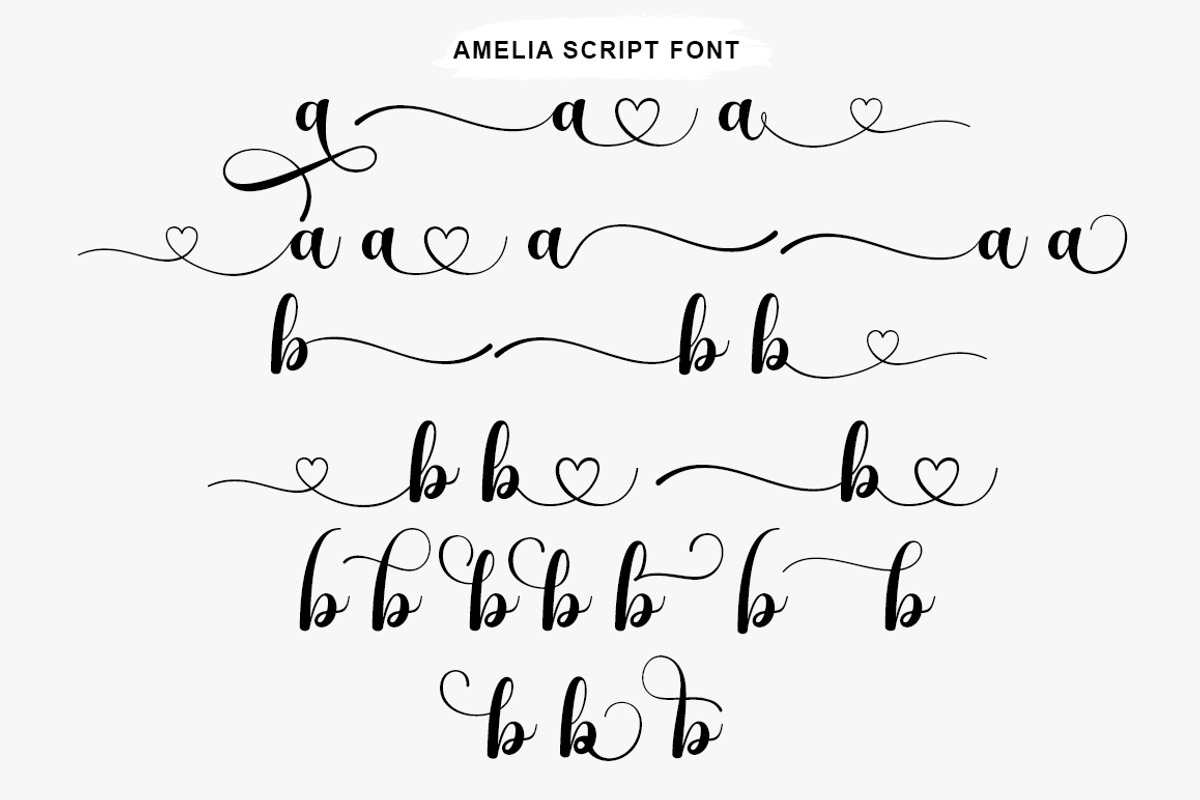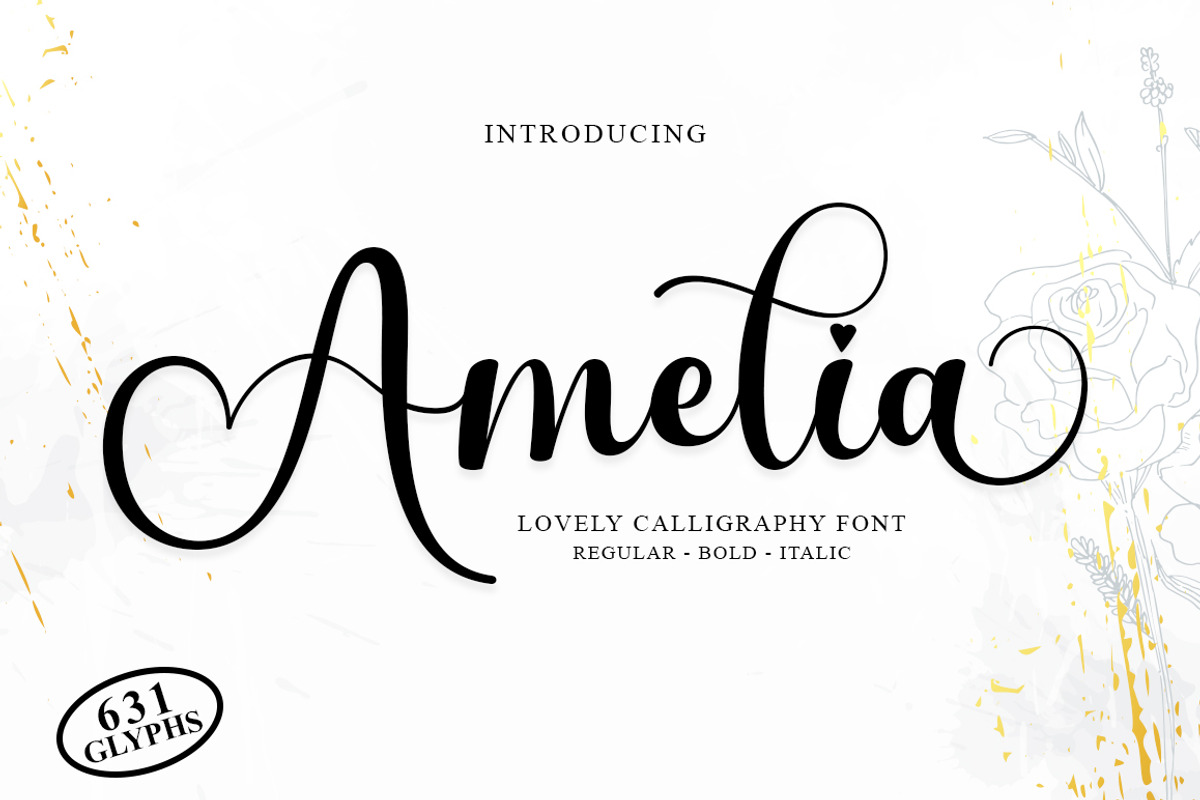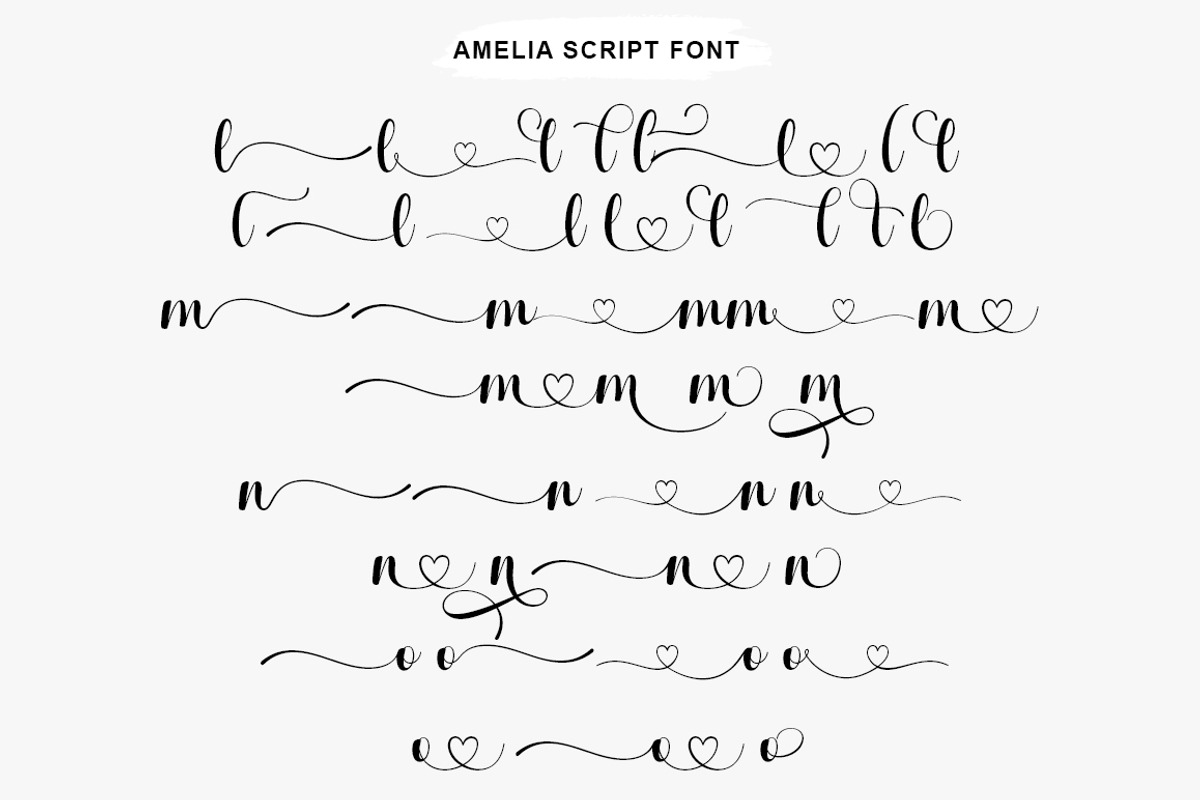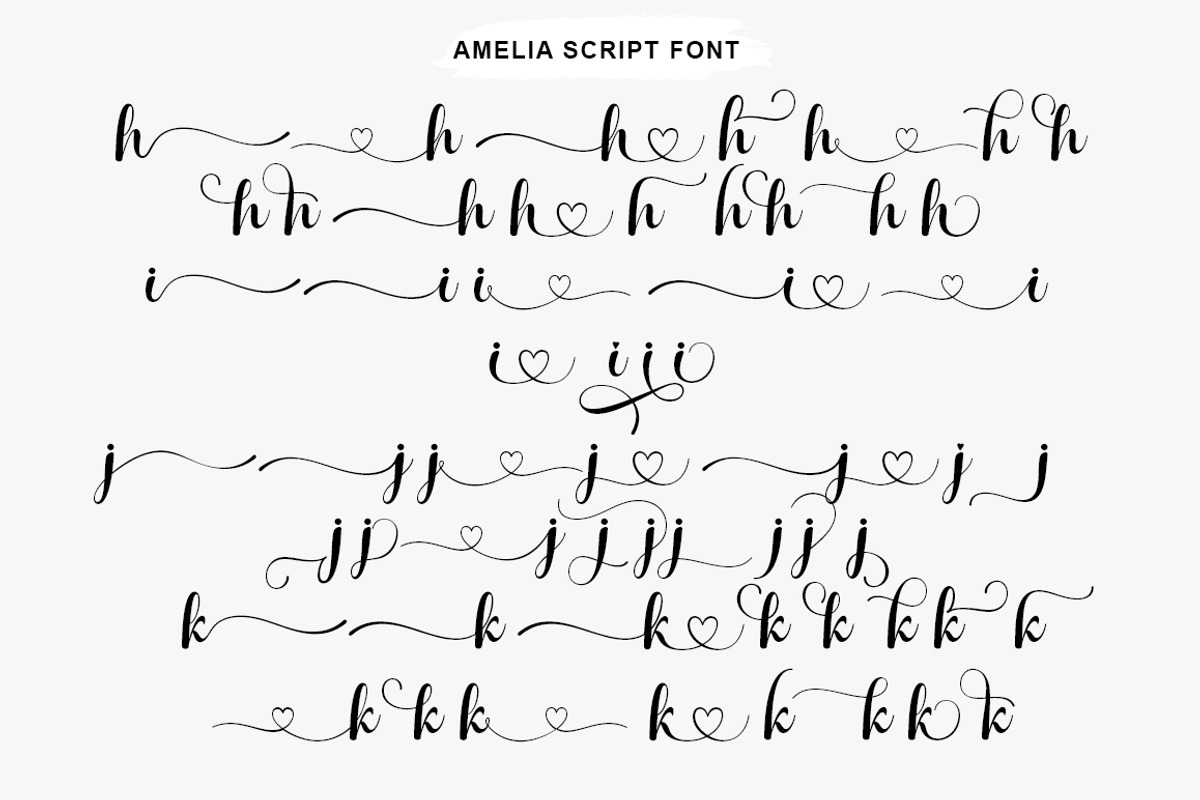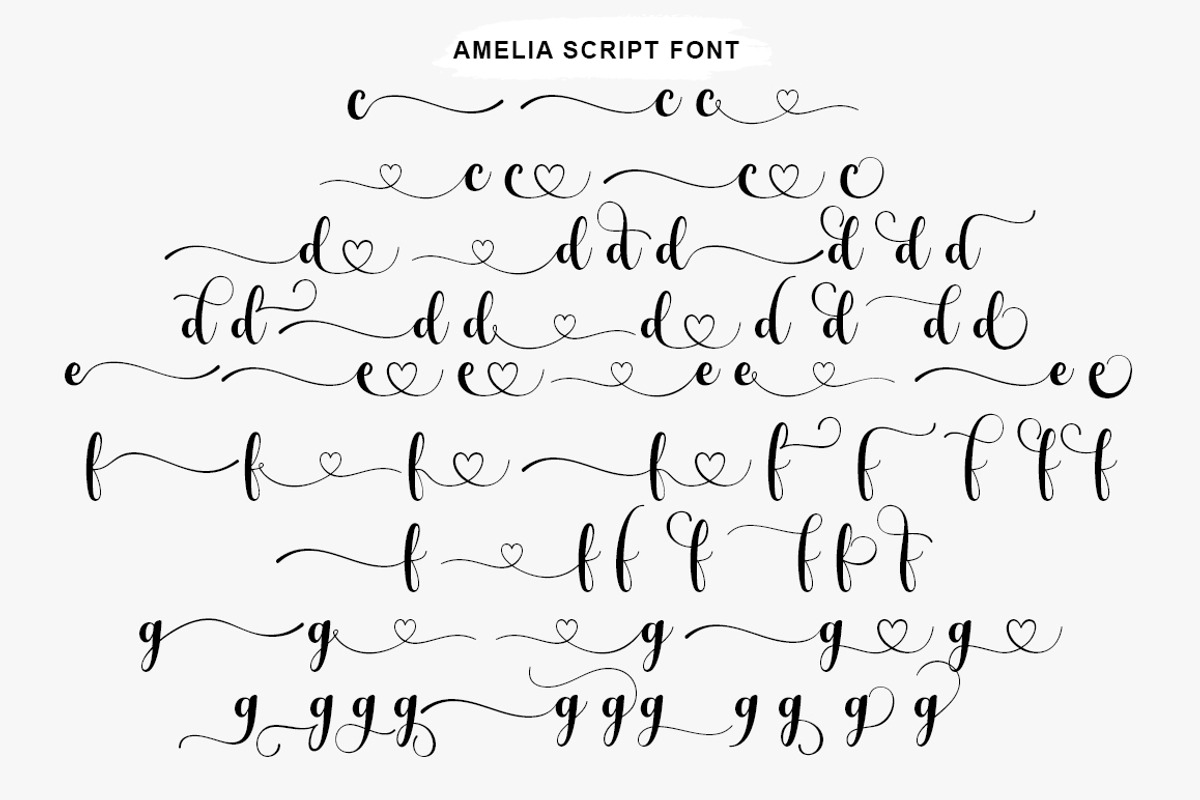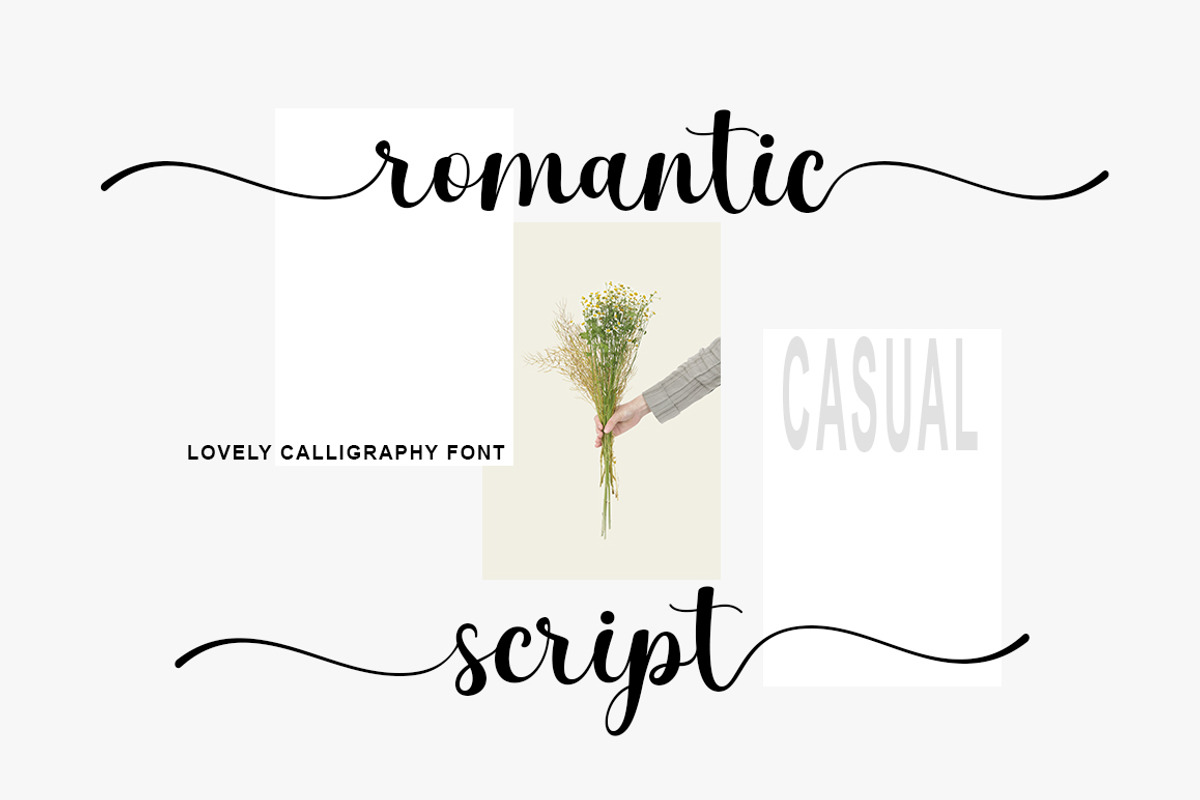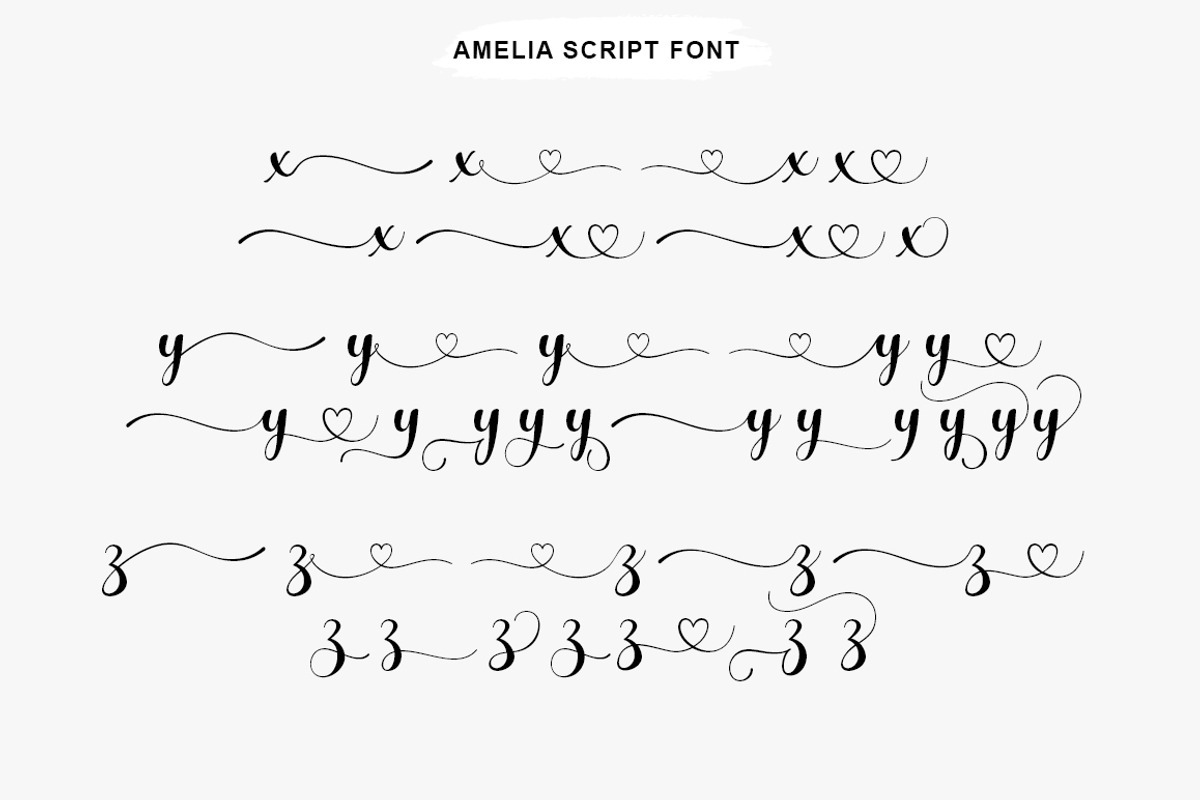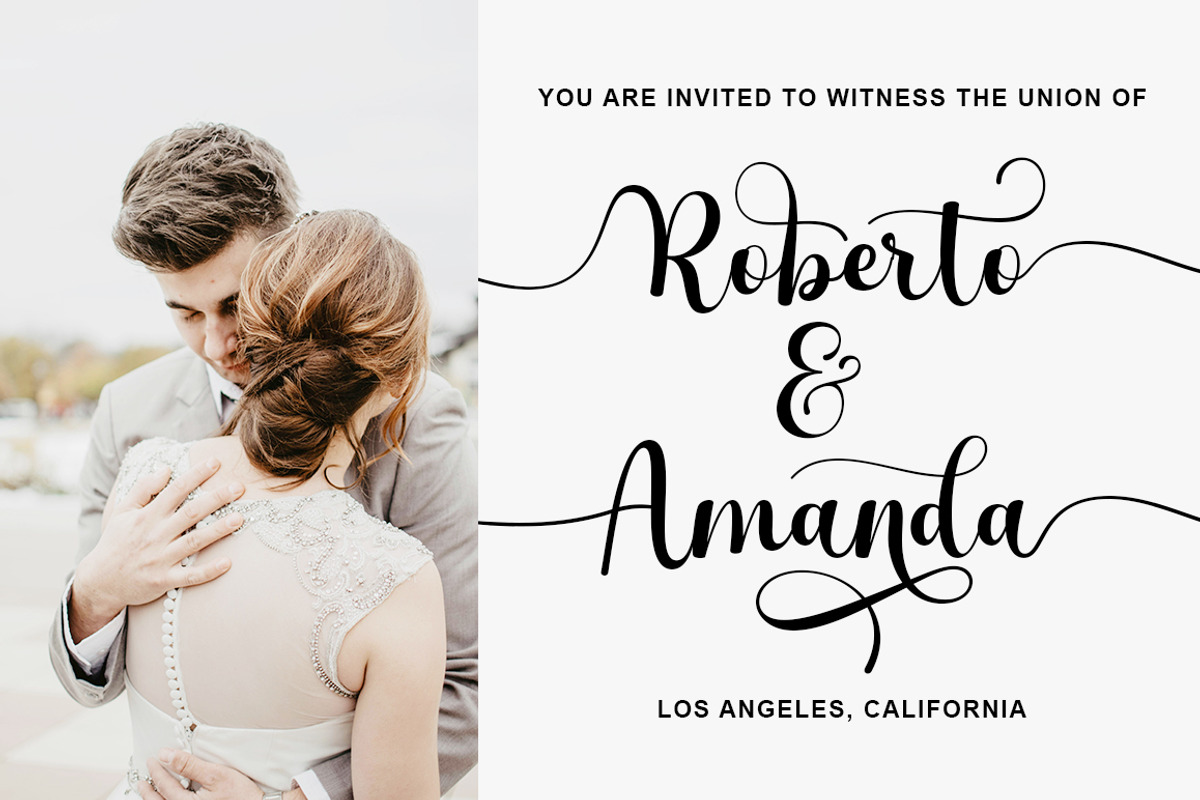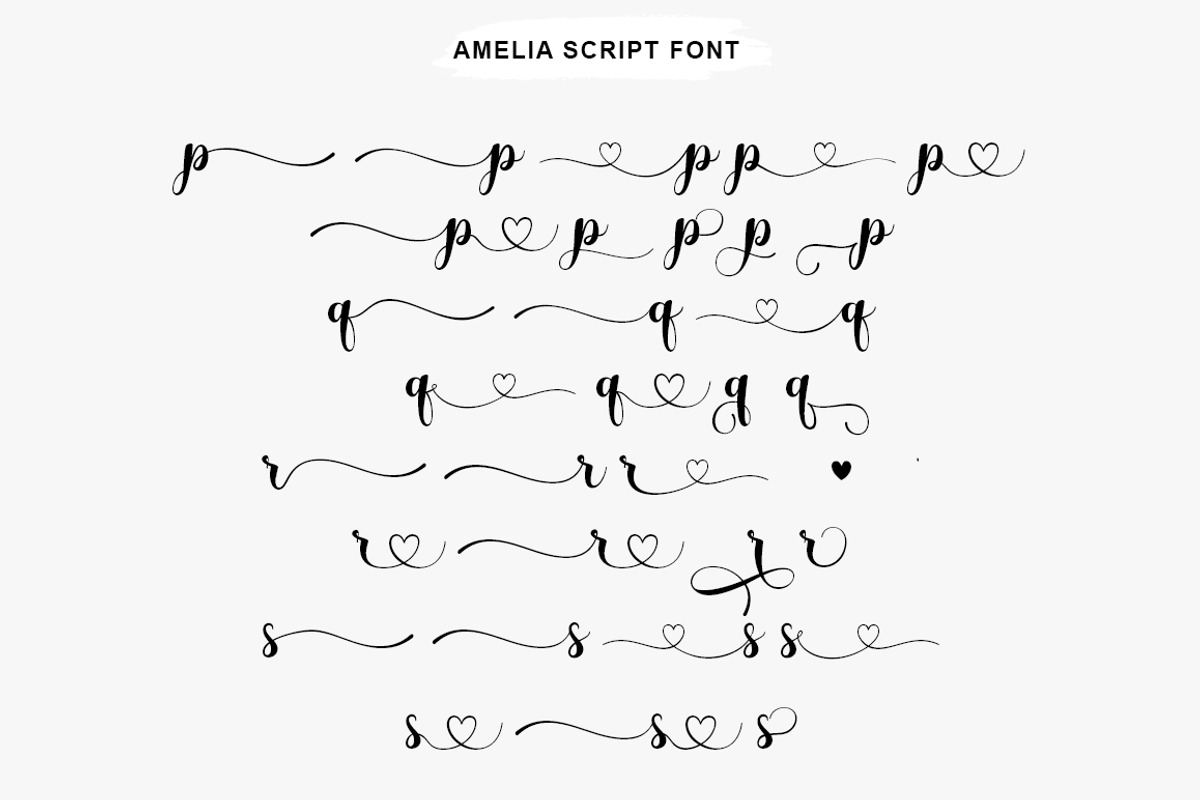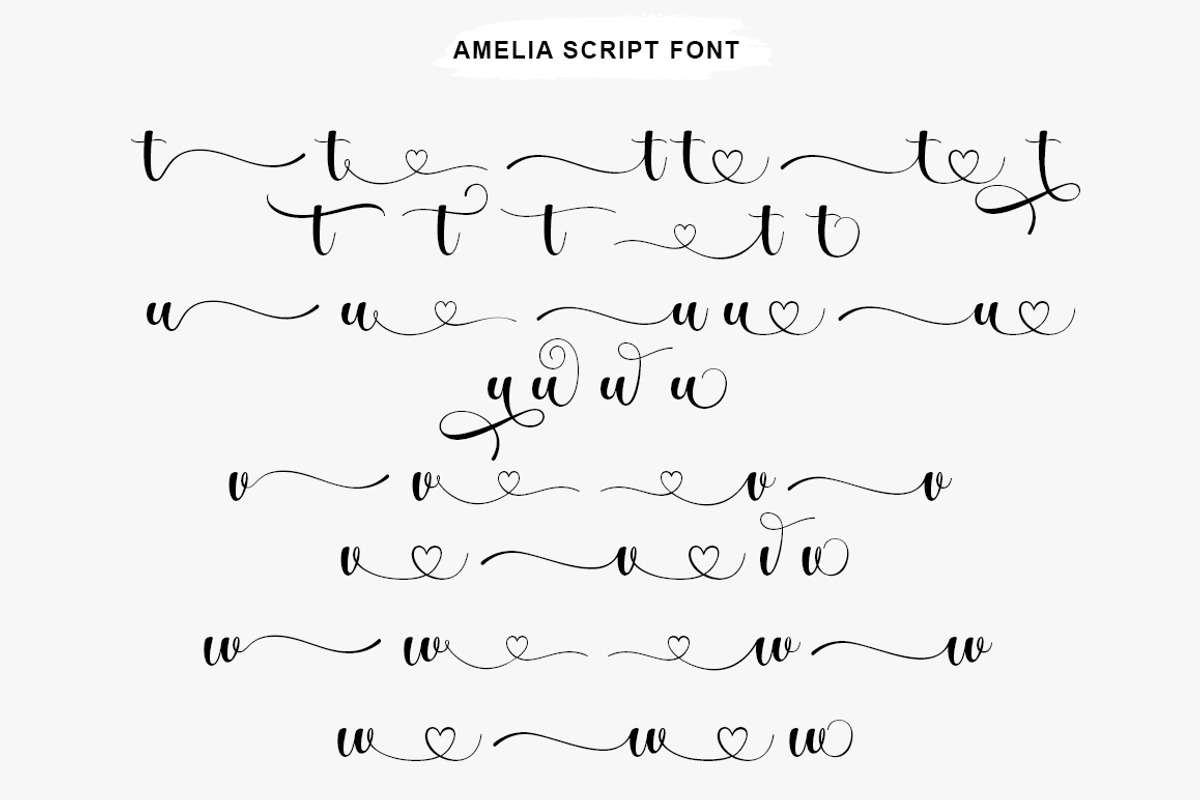
Ameliora - 3 Font
Ameliora is a charming and refined handwritten font, crafted with meticulous attention to detail to add an elegant and sophisticated touch to your design projects.
This font features 631 glyphs, encompassing a wide array of characters and symbols that enrich your typographic expressions. Available in three styles—Regular, Italic, and Bold—Ameliora offers flexibility in text styling, allowing you to tailor your design needs perfectly.
Additionally, Ameliora comes with decorative elements known as swashes—flourishes added to the letterforms.
These swashes enhance the visual appeal of the characters, giving your designs an artistic and elegant flair. By incorporating swashes, you can add a unique touch to initial or terminal letters, elevating the overall aesthetic quality of your text.
It is important to note that Ameliora is PUA encoded, ensuring easy access to all glyphs and swashes.
With its stunning design, versatile styles, and the added elegance of swashes, Ameliora is the perfect choice to elevate the aesthetic value of your design projects.